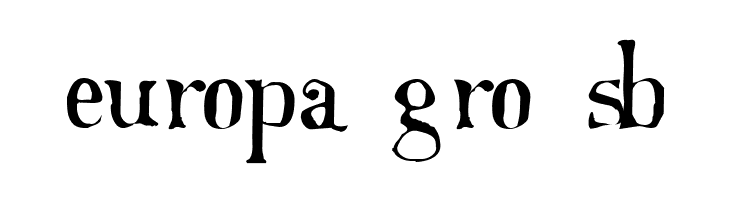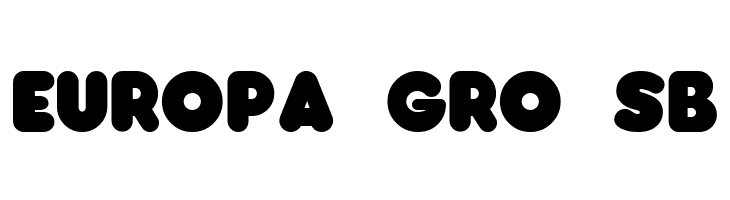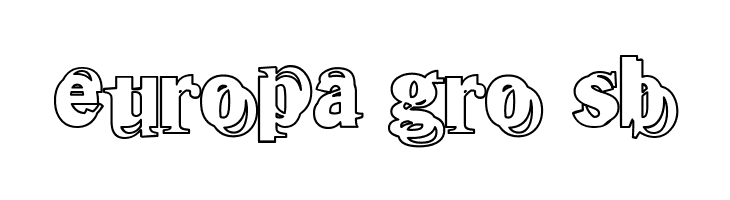
A bold, modern font with a fragmented, block-like design.
A bold, decorative Blackletter-style font with high contrast and intricate details.
A modern Fraktur style font with sharp, angular forms and intricate detailing.
A traditional blackletter font with ornate, angular letterforms.
A bold, decorative font with a strong outline and retro flair.
A bold, three-dimensional font with a vintage poster style.
A quirky, hand-drawn font with jagged edges and a playful style.
A quirky, hand-drawn font with jagged, hollow outlines.
A tall, jagged font with an eerie, playful horror theme.
A bold, glitch-inspired sans-serif font with a fragmented, digital aesthetic.
A bold, playful font with a spooky, whimsical style.
A bold, modern font with strong, uniform characters ideal for impactful designs.
A bold, rounded font with a playful and friendly style.
Elaborate, pictorial font with fantasy illustrations forming each character.
Illustrative font with fantasy-themed scenes for each character.
A pictorial dingbat set featuring dramatic fantasy illustrations.
A playful, futuristic font with bold strokes and circular elements.
A bold, hand-drawn font with textured, jagged edges and a playful style.
A barcode font for encoding alphanumeric characters into machine-readable format.
A barcode font designed for encoding alphanumeric characters in a machine-readable format.
A playful, hand-drawn font with tall, narrow letters and a whimsical style.
A bold, monospaced font with uniform width and modern, rounded edges.